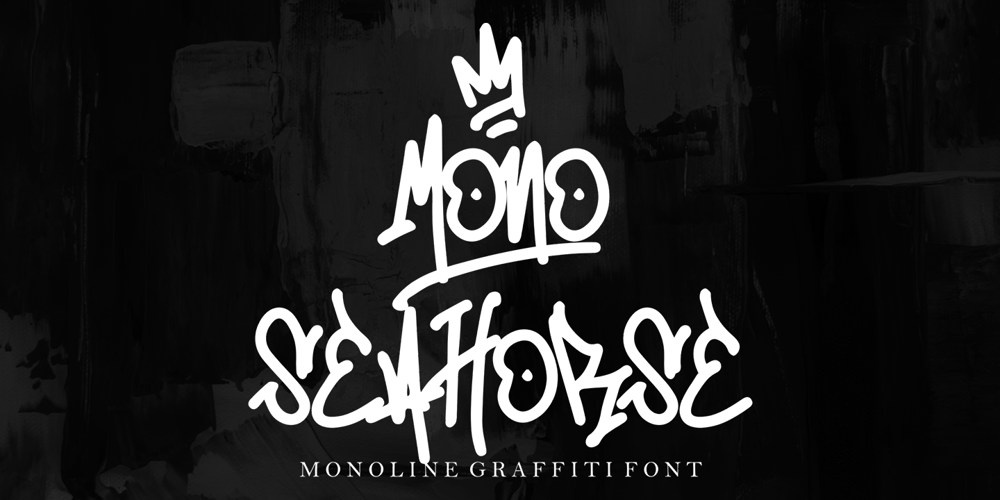
Mono Seahorse Graffiti Font Family was designed by Sipanji and published by Sipanji21. Mono Seahorse Graffiti contains 1 styles and family package options. Mono Seahorse is a display font with a monoline graffiti style, there is some swash for your awesome design. It will elevate a wide range of design projects to the highest level, be it branding, headings, wedding designs, invitations, signatures, logos, labels, and much more!